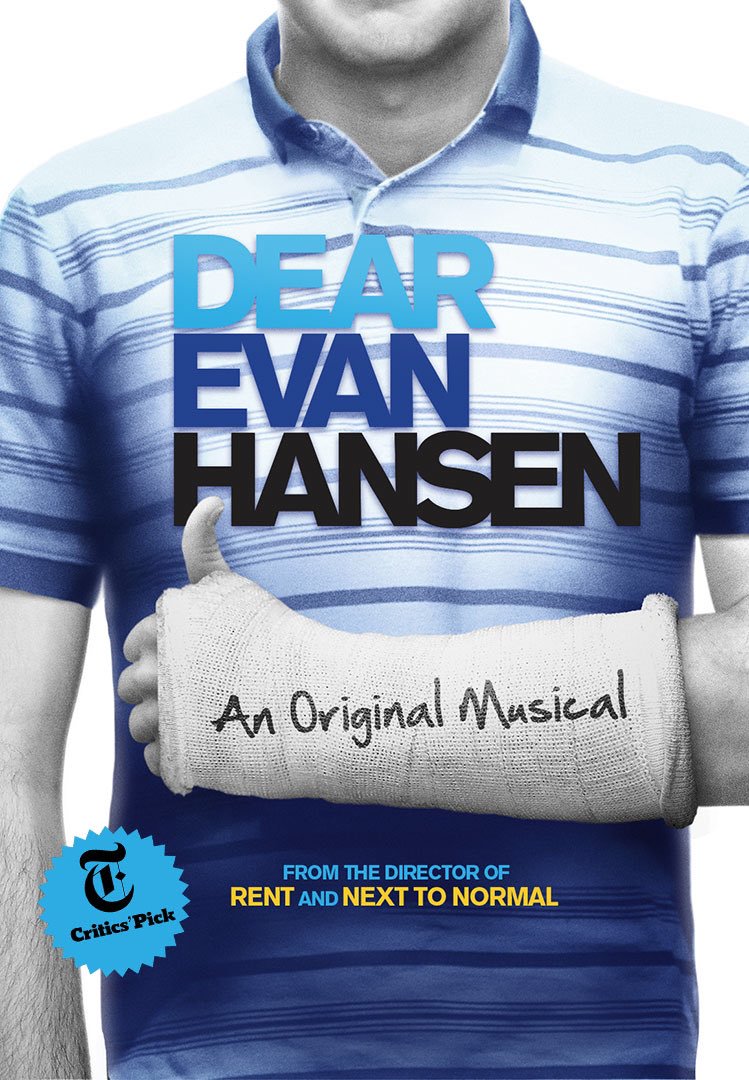
Dear Evan Hansen Font
Fonts in UseDear Evan Hansen is a Tony Award-winning musical that tells the heartfelt story of a socially anxious teenager who finds himself caught in a web of lies and the unexpected impact he has on those around him, exploring themes of loneliness, connection, and the power of honesty.
The musical title on the poster seems to have been created using the font Proxima Nova Bold, a geometric sans designed by Mark Simonson. Additionally, the script font used for the text "An Original Musical" appears to be Hand of Sean by Sean Johnson and is available for free download from the Fonts Used Section.